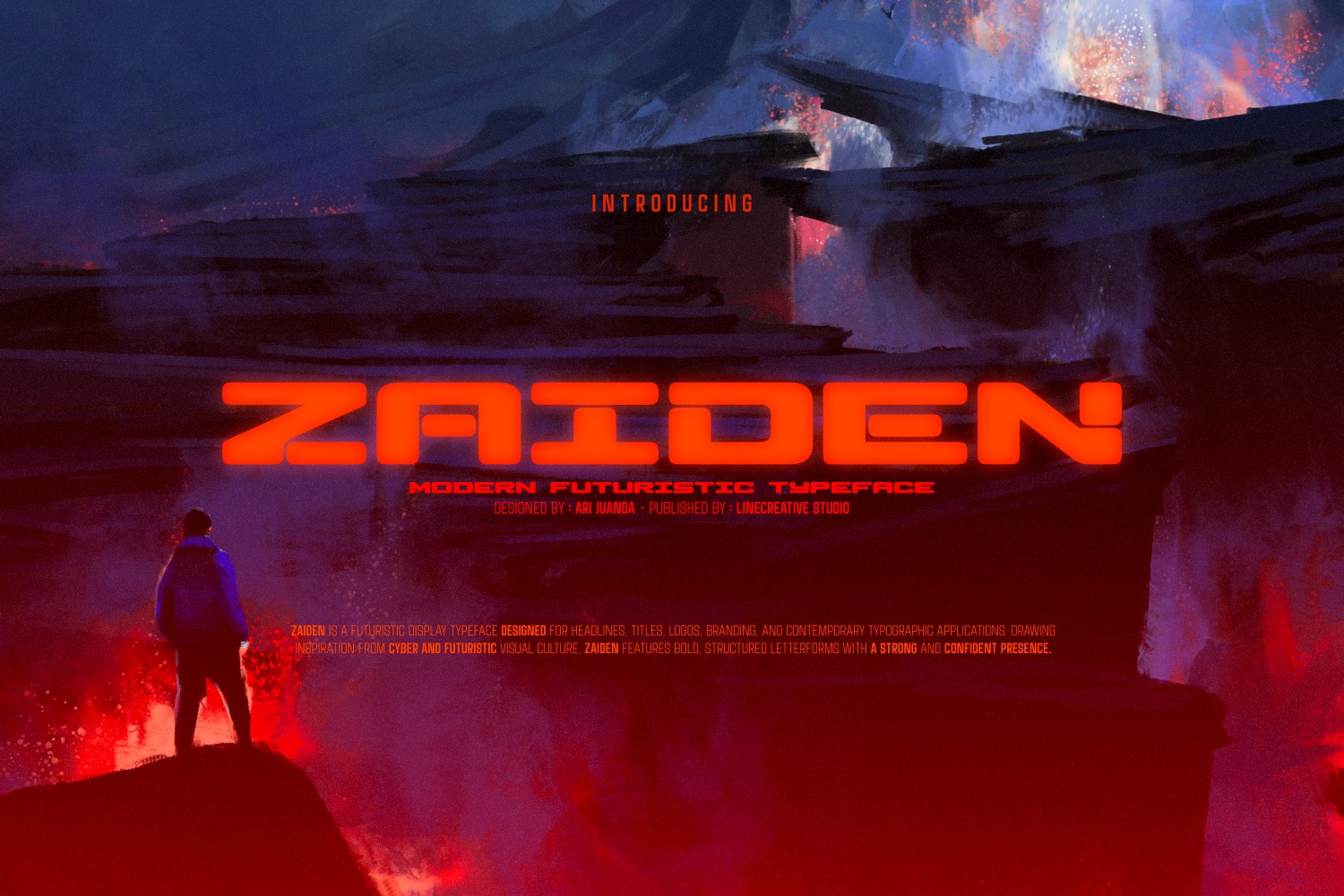
Zaiden – Modern Techno Font
Zaiden – Modern Techno Font is a stylish typeface that enhances visual appeal and works effortlessly in many design contexts. Zaiden font, this typeface features bold, rounded weights, with capital letters as its primary form. The lowercase characters are precisely cut, creating a futuristic aesthetic while ensuring clarity and legibility. This design approach imparts a distinctive technological character, making it ideal for modern, forward-thinking design projects.